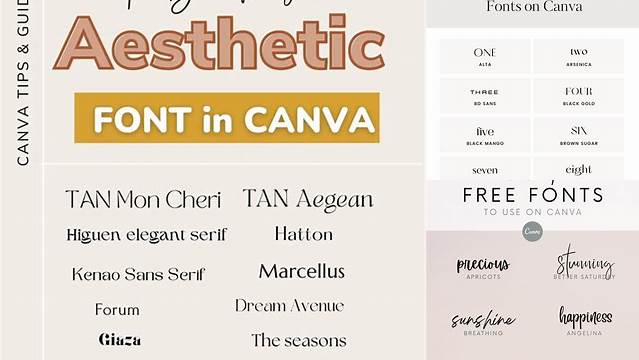
Aesthetic Fonts In Canva: Design Guide
Canva has become a go-to platform for anyone looking to create stunning visuals, whether you're a seasoned designer or just starting out. One of the key elements in any design is typography, and Canva offers a vast library of fonts to choose from. But with so many options, how do you pick the perfect font that not only looks good but also conveys the right message and enhances your overall aesthetic? In this guide, we'll dive deep into the world of Canva fonts, exploring aesthetic choices, font pairings, and tips for creating designs that truly stand out. So, let’s get started and discover the best fonts Canva has to offer!
Understanding Font Aesthetics in Canva
When we talk about font aesthetics in Canva, we're essentially discussing the visual appeal and style that a font brings to your design. Think of fonts as more than just letters; they're a crucial part of your visual communication. Different fonts evoke different emotions and create various impressions. For instance, a sleek, sans-serif font might give a modern, minimalist vibe, while a flowing script font can add a touch of elegance and sophistication. The right font can make your design pop, while the wrong one can make it fall flat. It’s all about finding that sweet spot where your text not only looks good but also aligns with your message and brand identity.
So, how do you choose the right aesthetic? First, consider your project’s purpose and target audience. Are you designing a poster for a children’s event? A playful, rounded font might be ideal. Creating a professional presentation for a corporate client? A clean, classic font would be a better fit. Understanding your audience and the message you want to convey is the first step in selecting the perfect font aesthetic. Next, think about the overall tone and mood you want to create. Is it fun and energetic, or serious and sophisticated? Your font choice should reflect this. For example, bold, sans-serif fonts often convey strength and confidence, while delicate serif fonts can exude elegance and tradition.
Another crucial aspect is readability. A beautiful font is useless if your audience can’t easily read your message. Always prioritize clarity, especially for body text. While decorative fonts can add flair to headings and titles, they should be used sparingly. Pairing fonts is also an art in itself. Combining different fonts can create visual interest and hierarchy, but it’s important to do it well. A good rule of thumb is to pair a serif font with a sans-serif font, or to use different weights and styles within the same font family. And speaking of Canva, its intuitive interface makes experimenting with different fonts a breeze. You can preview various fonts directly in your design, adjust sizes and spacing, and see how they look together. This makes it super easy to explore different font aesthetics and find what works best for your project. Remember, the goal is to create a design that not only looks visually appealing but also communicates effectively. So, take your time, explore the options, and have fun with it!
Top Font Choices in Canva for Various Design Styles
Canva's extensive font library can feel like a treasure trove, but it can also be a little overwhelming. To help you navigate this sea of typography, let's explore some top font choices in Canva for various design styles. Whether you're aiming for a modern, minimalist look or a vintage, rustic feel, Canva has a font to match your vision. We’ll break it down by style, giving you some stellar options to consider for your next project.
For a modern and minimalist design, clean sans-serif fonts are your best friends. These fonts are characterized by their simplicity and lack of serifs (the little strokes at the ends of letters). One standout choice is Montserrat. It’s a versatile font that works well for headlines and body text alike, offering a clean and contemporary feel. Another excellent option is Open Sans, known for its readability and neutral appearance, making it perfect for a wide range of projects. Lato is another gem, offering a balanced and modern look that’s both friendly and professional. These fonts are ideal for websites, presentations, and branding materials where clarity and simplicity are key. Think tech startups, corporate communications, and sleek marketing materials.
If you're going for an elegant and sophisticated vibe, serif fonts are the way to go. Serifs give a font a more traditional and refined appearance. Playfair Display is a classic choice, exuding elegance and grace with its high contrast and delicate serifs. It's perfect for headlines, invitations, and anything that needs a touch of class. Lora is another fantastic option, known for its readability and elegant curves, making it great for both headings and body text. For a more modern take on serif fonts, consider Merriweather. It's designed for readability on screens, making it ideal for websites and digital publications. These fonts shine in projects like wedding invitations, luxury branding, and editorial designs.
For a playful and creative design, you have a lot of room to experiment. Script fonts can add a whimsical touch, but use them sparingly as they can be less readable in large blocks of text. Pacifico is a popular script font that’s fun and friendly, perfect for logos, social media graphics, and posters. If you need something with a handwritten feel, Amatic SC is a great choice for headings. For a more quirky and unique look, consider fonts like Luckiest Guy or Bangers. These fonts are perfect for children’s books, informal invitations, and anything that needs a dose of fun. Just remember to balance these playful fonts with more neutral fonts for body text to ensure readability. So, guys, choosing the right fonts in Canva can really elevate your design game!
Font Pairing Tips for Aesthetic Designs in Canva
Font pairing is an art and science. It’s about creating visual harmony and hierarchy in your designs. The right font pairing can make your text pop, guide the reader’s eye, and enhance the overall aesthetic of your project. But, like any art form, it takes a bit of know-how to get it right. Don't worry, though! With a few font pairing tips for aesthetic designs in Canva, you'll be creating stunning typographic compositions in no time. Let's dive in and uncover the secrets to successful font pairings.
One of the most classic and reliable font pairing strategies is to combine a serif font with a sans-serif font. This creates a visual contrast that’s pleasing to the eye and helps distinguish headings from body text. For example, you might pair the elegant serif font Playfair Display with the clean sans-serif font Montserrat. This combination provides a nice balance between sophistication and modernity. Another popular pairing is Lora (serif) with Open Sans (sans-serif), offering a readable and professional look. The key is to choose fonts that complement each other without competing for attention. Think of it like a dance – each font should have its own role, but they should move together in harmony.
Finally, we discussed how to use Canva fonts effectively in your projects, focusing on hierarchy, readability, color, and the importance of experimentation. Remember to create a clear visual structure by using different font sizes and weights for headings and body text. Ensure readability by choosing appropriate fonts and adjusting letter spacing and line height. Use color strategically to create contrast and highlight key information. And most importantly, don’t be afraid to experiment and put your own creative spin on things. So, guys, go ahead and explore the vast world of Canva fonts. With the knowledge and tips you’ve gained, you’re well-equipped to create stunning designs that not only look beautiful but also communicate your message effectively. Happy designing!